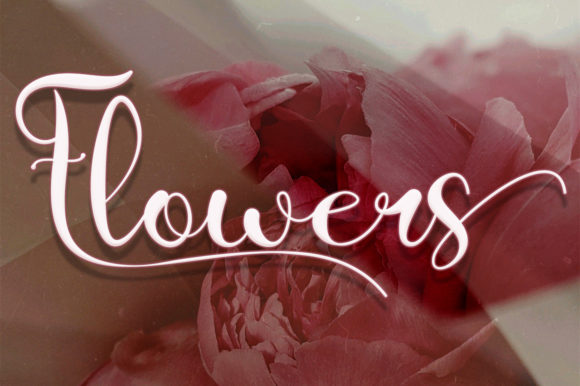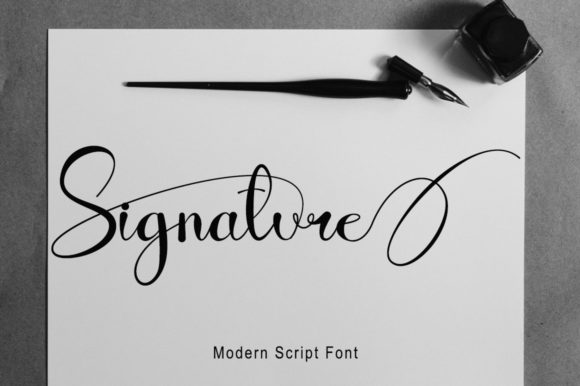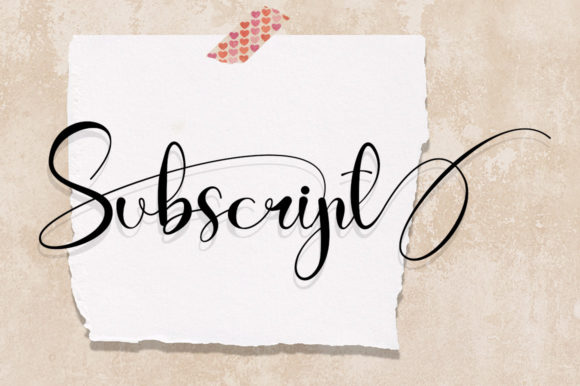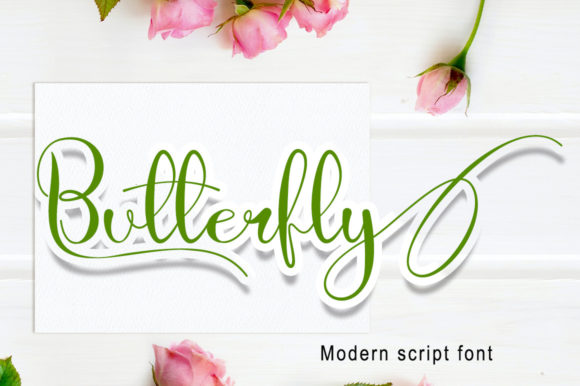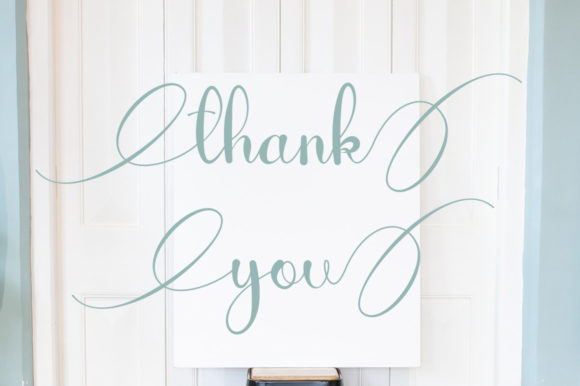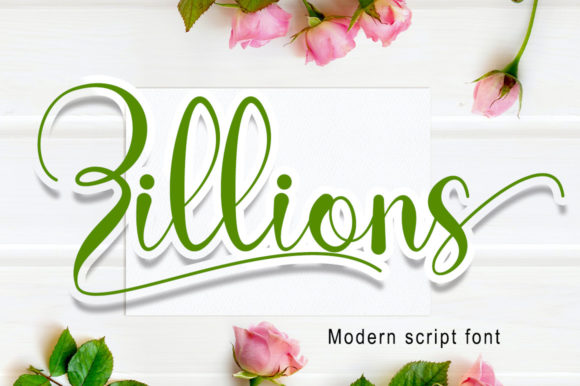
Zillions Font
About Zillions Font
Zillions is a distinct graceful script font. Fall for its ravishing style and use it to create gorgeous designs. This font is PUA encoded which means you can access all glyphs and swashes with ease!